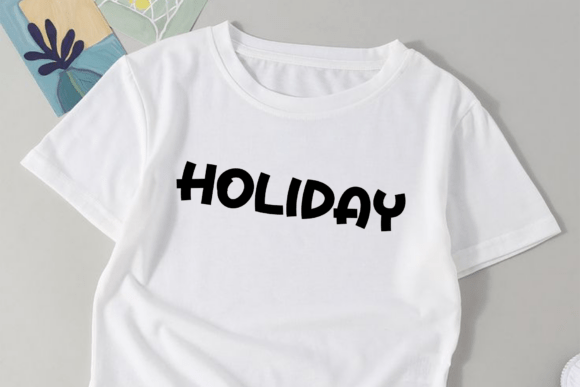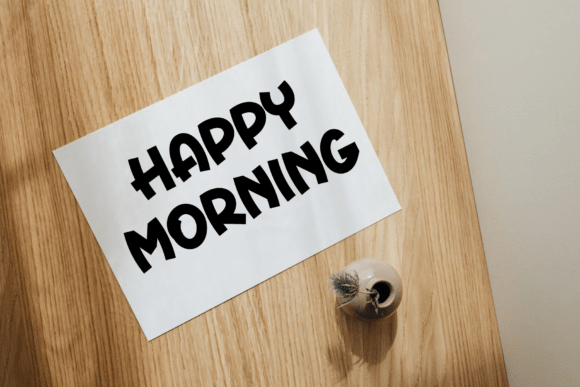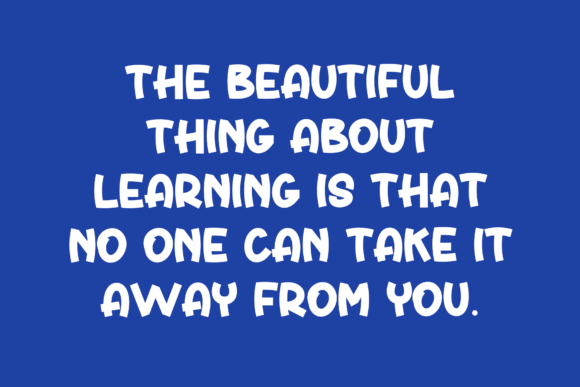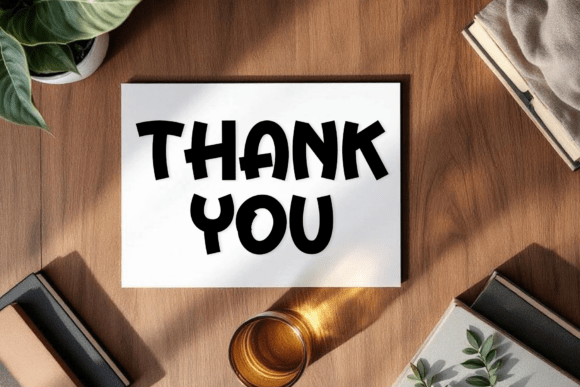
Introduction to Smart Bold Font
As a designer, you’ve probably experienced that moment when you’re brainstorming ideas for a creative project and everything clicks into place. The colors, the typography, the overall aesthetic – it all comes together to create something truly special. And that’s exactly what happens when you discover the perfect font. For many designers, that perfect font is the Smart Bold Font, a casual and neat display font that combines simplicity with a friendly, approachable vibe.
Whether you’re working on a branding project, creating packaging, or designing digital content, the Smart Bold Font is a valuable resource that can elevate your design to the next level. Its clean lines, balanced letterforms, and subtle rounded edges make it a versatile choice that’s perfect for a wide range of applications.
Key Features of Smart Bold Font
- High-quality vector design for crisp and clear rendering, suitable for large-scale creative projects.
- Includes a comprehensive set of glyphs, ensuring that you have all the characters you need for your creative project.
- Designed with a bold and modern aesthetic, perfect for making a statement in your design.
Honest Review: Smart Bold Font
I recently had the chance to work with Smart Bold Font for a creative project, and I was pleasantly surprised by its high quality and versatility. ✨ The font’s clean and modern design makes it an excellent choice for a variety of design resources, from logos to typography-heavy compositions.
- The Smart Bold Font comes in a range of weights and styles, allowing for a high degree of customization and flexibility.
The font’s transparent background also makes it easy to use in conjunction with other design elements, and its scalable design ensures that it looks great in a range of sizes.
⚠️ One potential limitation of Smart Bold Font is its lack of support for certain special characters, which may be a issue for designers working on projects that require a high degree of internationalization.
Overall, I was impressed by the Smart Bold Font’s high quality and versatility, and I would definitely recommend it as a design resource for anyone looking for a clean and modern font.
The Smart Bold Font is a versatile design resource that can be used in a variety of creative projects, including logos, business cards, and presentations. Its high-quality design and transparent background make it an ideal choice for designers who want to add a professional touch to their work.